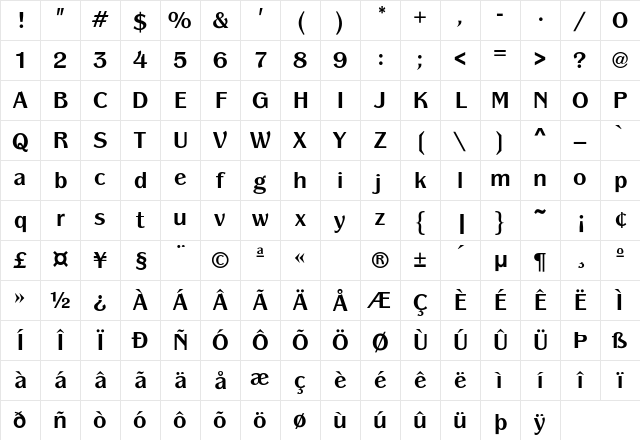
Panache-Bold Regular
Design Context for Panache-Bold
Panache-Bold is a composed and adaptable typeface that performs quietly and consistently across a wide range of design contexts. Its bold stroke weight gives it real presence on the page.